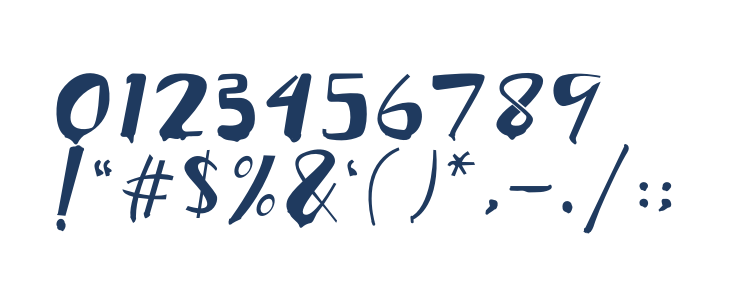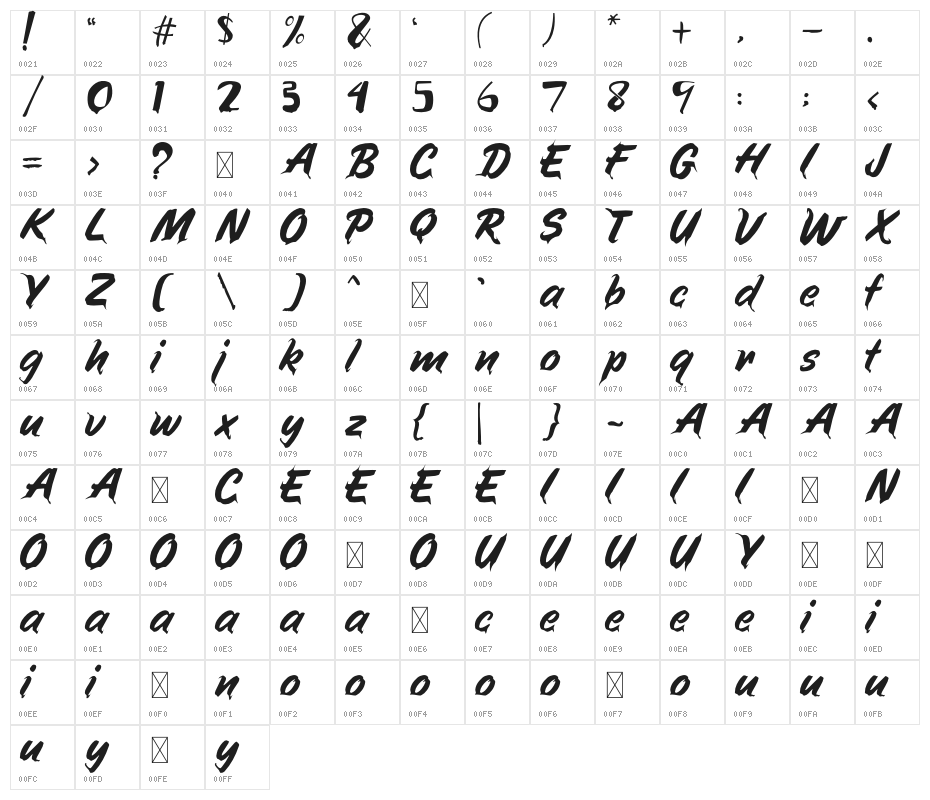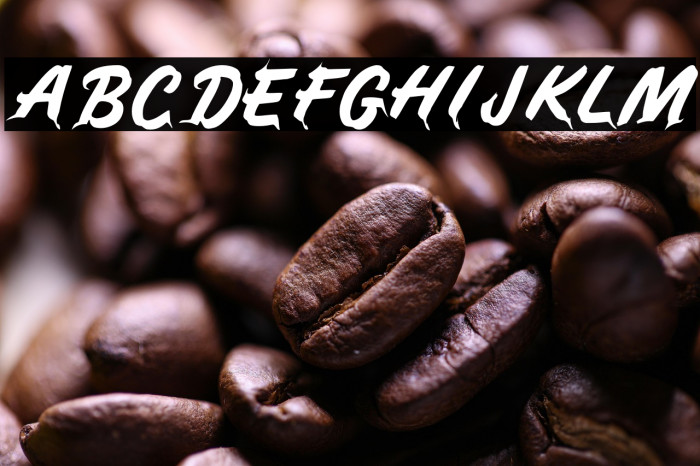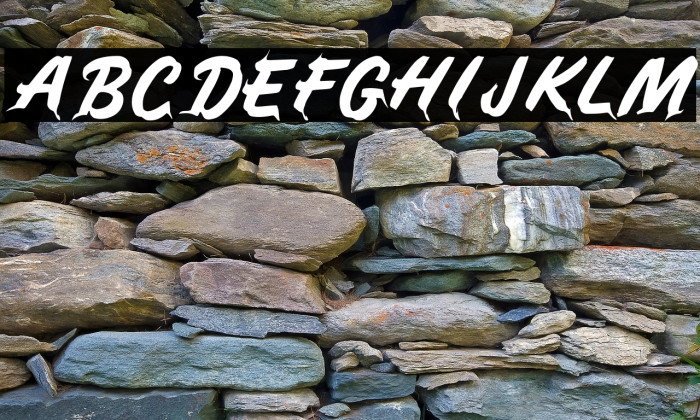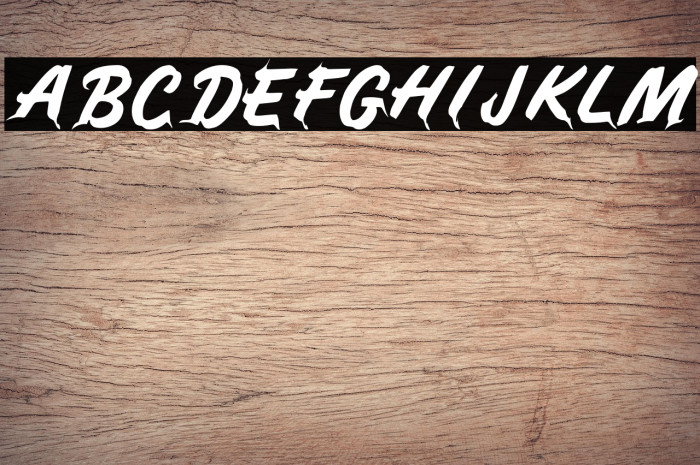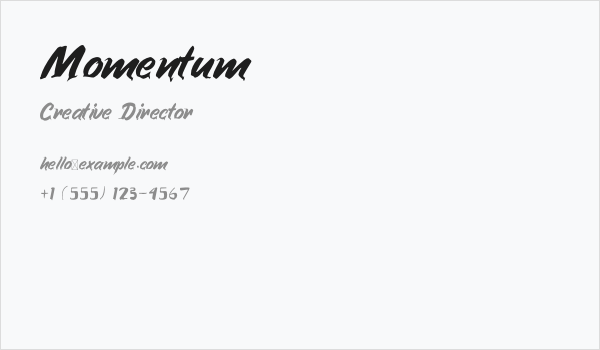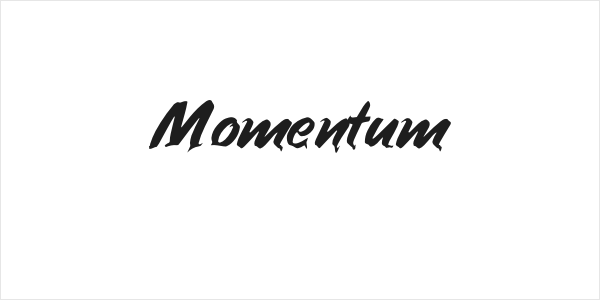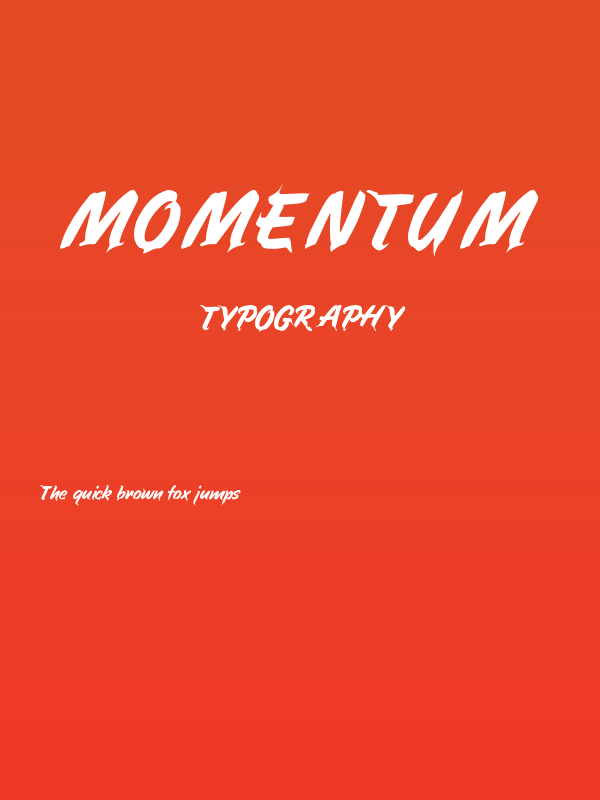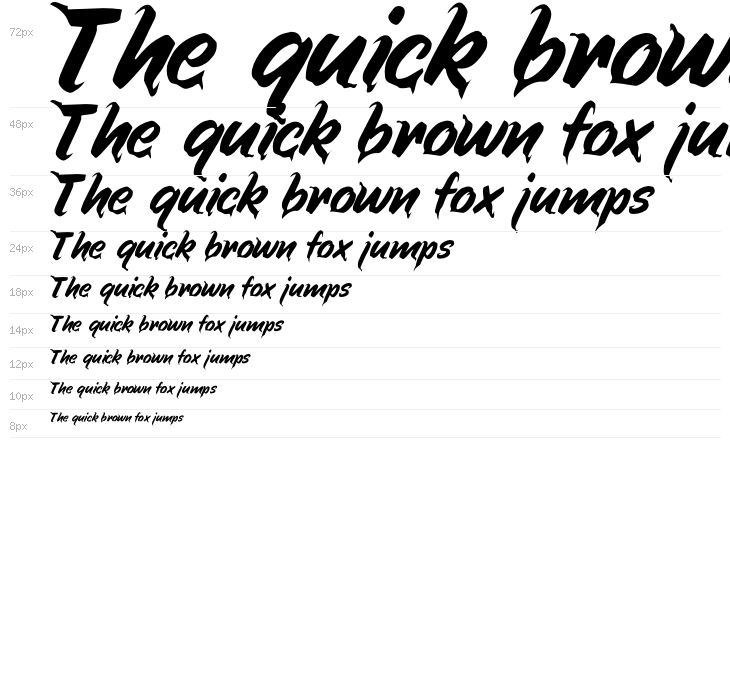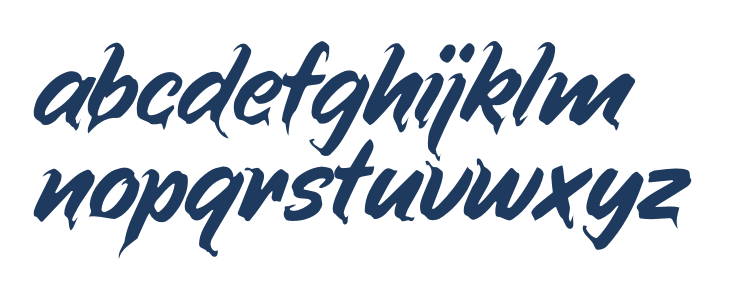
Momentum Font
Momentum Description
This font features a dynamic and energetic style with a brush-like appearance, giving it a sense of movement and fluidity. The uppercase and lowercase letters are bold and slightly slanted, adding to the impression of speed and motion. The strokes are thick and expressive, with sharp angles and pointed ends that create a sense of urgency and excitement. The numbers and special characters maintain this lively aesthetic, making the font suitable for attention-grabbing designs. Its unique style makes it ideal for projects that require a bold and artistic touch.